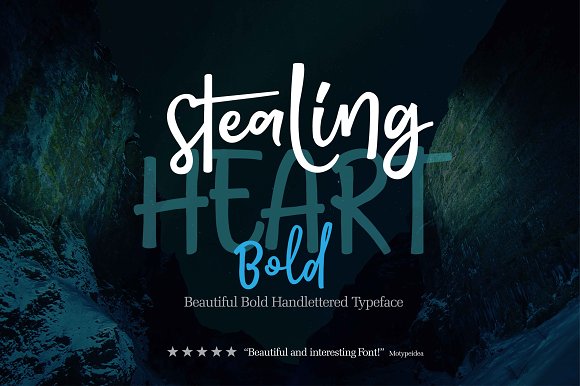
Unleash the Enchantment of Your Designs with Stealing Heart Bold: A Script Font Befitting a Love Story
In the realm of digital artistry, where creativity knows no bounds, there exists a font that captures the essence of elegance, romance, and timeless beauty. Introducing Stealing Heart Bold, a modern calligraphy-style typeface crafted by the visionary designers at Olexstudio. This captivating script font is poised to transform your design projects into captivating masterpieces, leaving an indelible mark on the hearts of your audience.
Stealing Heart Bold is not just a font; it's an invitation to embark on a journey of artistic expression. Its meticulously crafted glyphs dance across the digital canvas with the grace of a ballerina, evoking a sense of wonder and delight. Each letterform is a testament to the boundless creativity that resides within the human spirit.
Immerse yourself in the world of Stealing Heart Bold, where passion and artistry intertwine to create something truly extraordinary. Let your designs blossom with the allure of this captivating script, captivating the attention of all who lay their eyes upon it.
With Stealing Heart Bold as your creative companion, you'll discover endless possibilities to make your designs shine. Whether you're a seasoned designer or just starting your journey into the realm of digital artistry, this font will ignite your imagination and empower you to create designs that resonate with your audience.
Be it a heartfelt love letter, an enchanting invitation, or a captivating social media post, Stealing Heart Bold will effortlessly elevate your words, transforming them into visual masterpieces that speak volumes. Its elegant curves and sweeping strokes will leave an enduring impression, ensuring that your message is not just read, but felt.
So, dear seeker of beauty and enchantment, we invite you to embrace the allure of Stealing Heart Bold. Let your creative spirit soar as you explore the depths of this remarkable script font. Experience the joy of crafting designs that captivate, inspire, and leave an everlasting legacy.